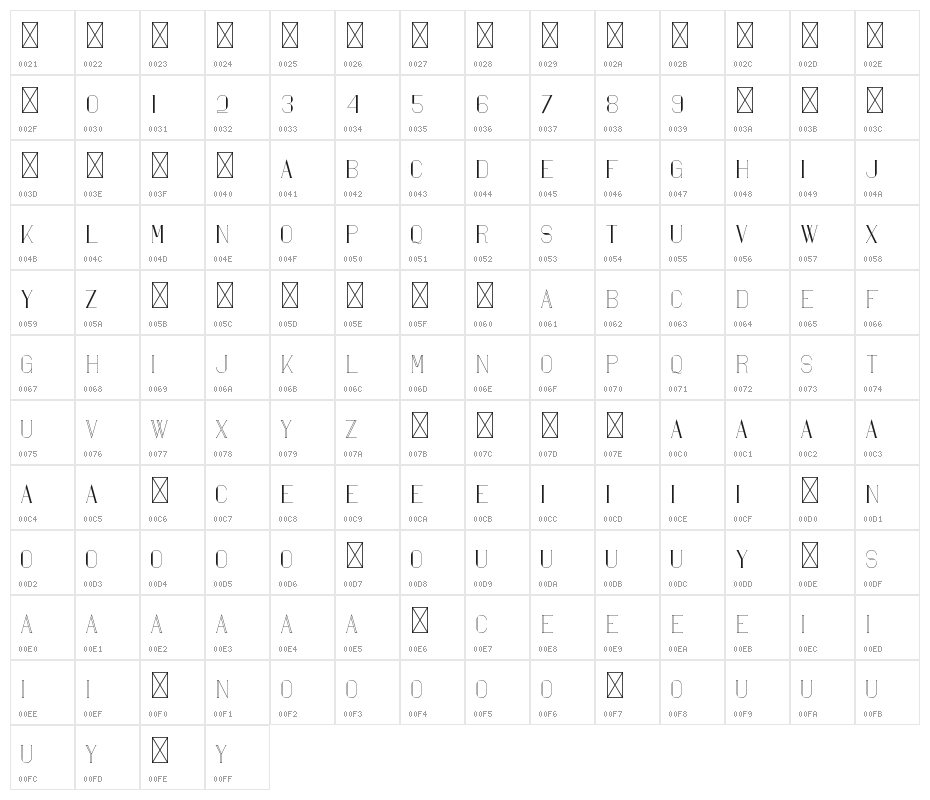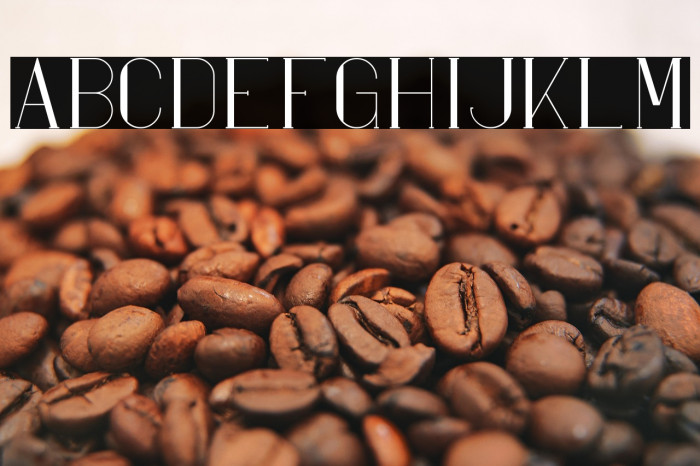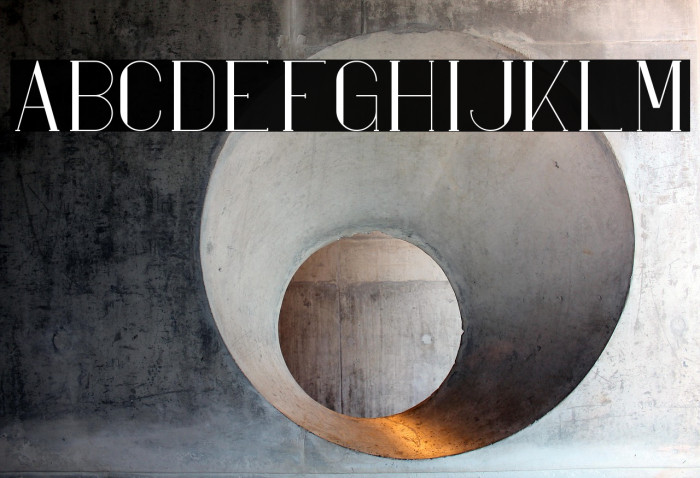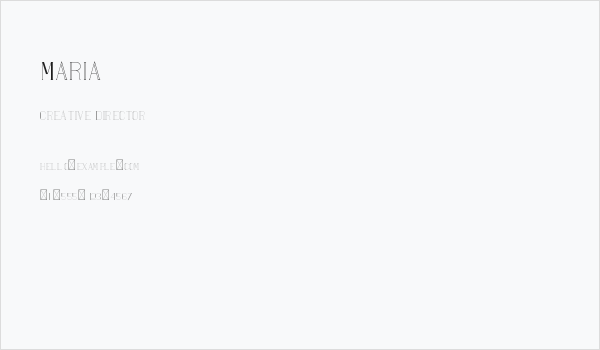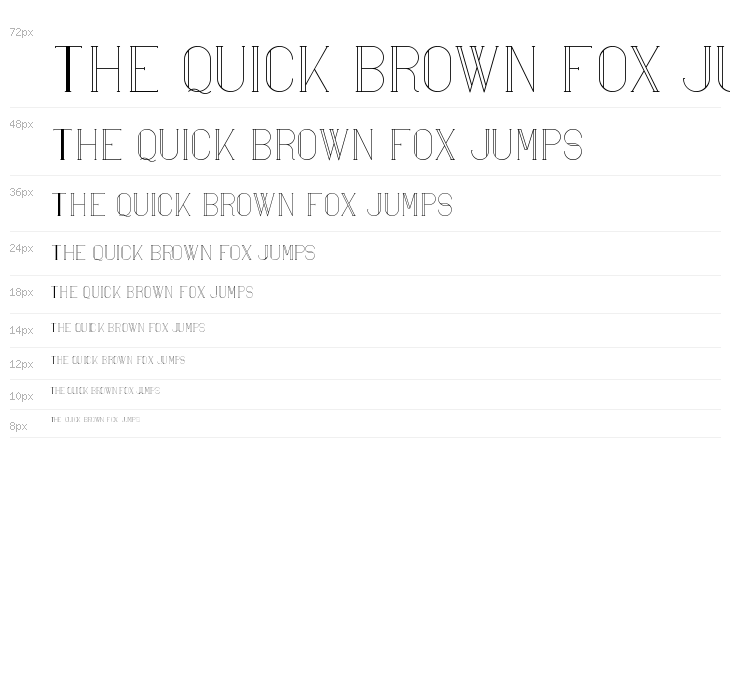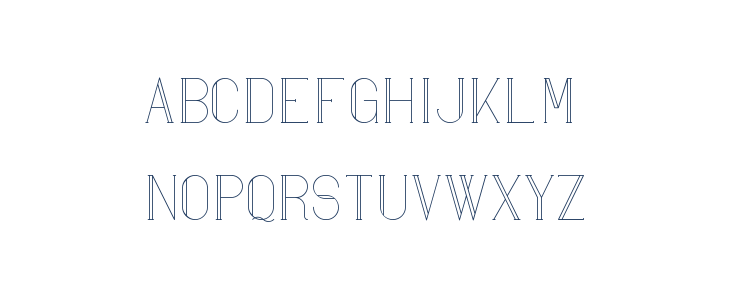
Maria Font
Maria Description
This font features a modern and stylish design with a unique blend of thin and thick strokes, creating a high contrast that is visually striking. The uppercase letters are tall and elegant, with a geometric influence that gives them a contemporary feel. The lowercase letters maintain the same modern aesthetic, with clean lines and a consistent stroke width. The numerals are distinct and match the overall style, making them easily readable. Special characters are included, designed with the same attention to detail, ensuring they integrate seamlessly with the rest of the font. This font is perfect for projects that require a touch of sophistication and modernity.
| Use Case | Headlines, Logos, Editorial Design |
| Proposed Projects | Ideal for branding, editorial design, fashion magazines, and luxury product packaging. |